Interrobang Type
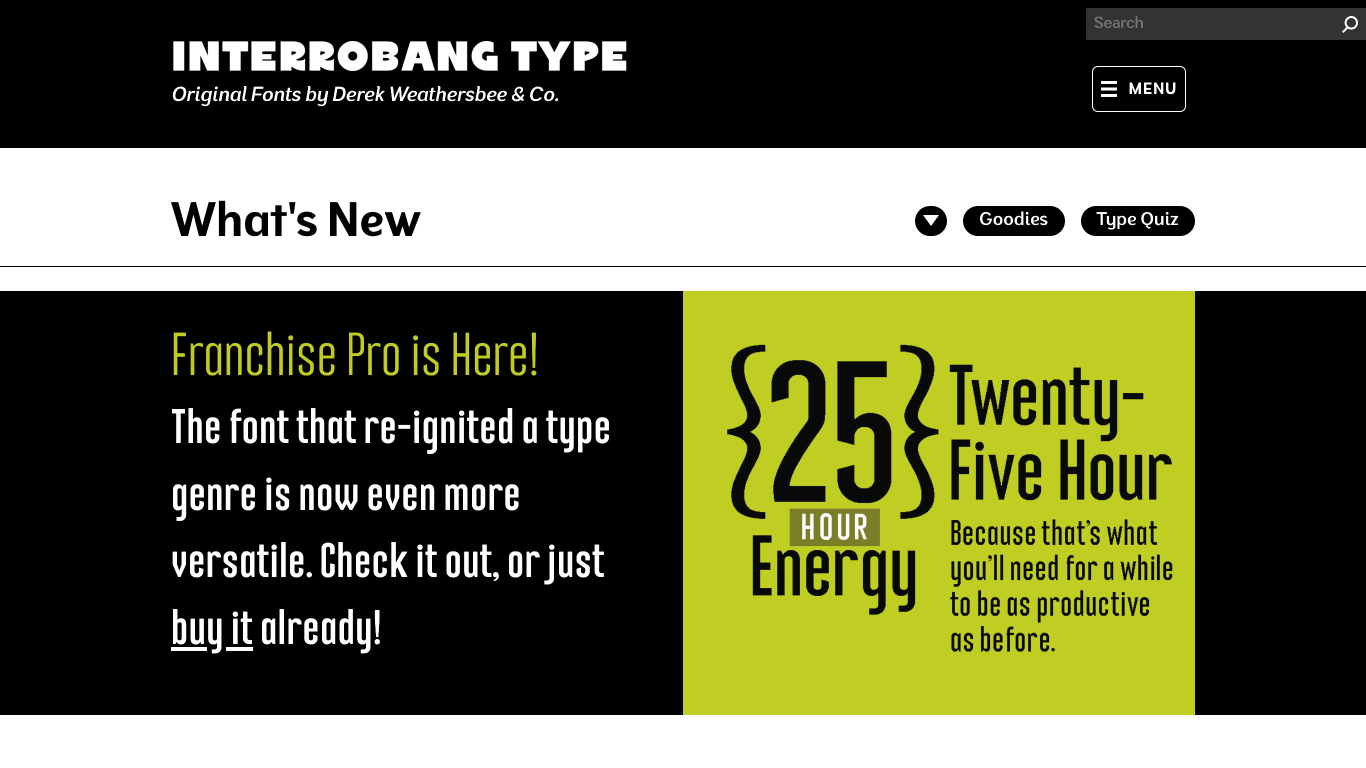
Interrobang Type Co is an independent type foundry founded by Derek Weathersbee. Originally launched as Weathersbee Type in 2014, the studio rebranded to Interrobang Type Co in 2021 to better reflect its distinctive character and visual identity. Run entirely by Weathersbee, the foundry handles everything from type design to development in-house. Notable typefaces include Franchise Pro (a bold, versatile display), Excavate (a hand-lettered-inspired face with historical depth), and Popup (a playful, childlike design). Interrobang’s fonts have been used by major brands and institutions such as Walgreens, Starbucks, Target, Walmart, the NFL, Taco Bell, American Eagle, The History Channel, and Warner Brothers.